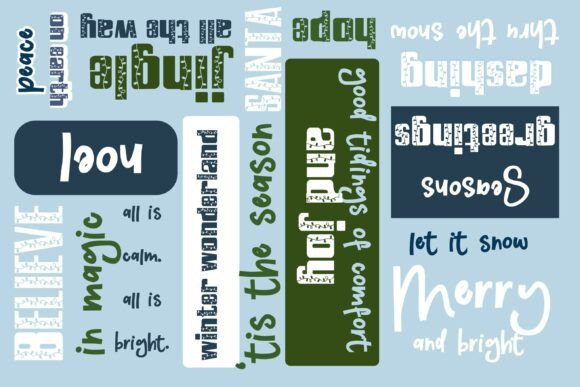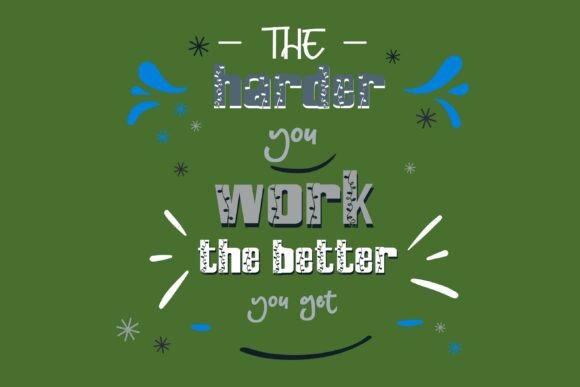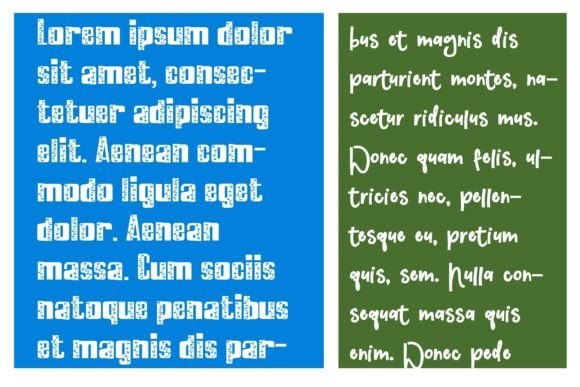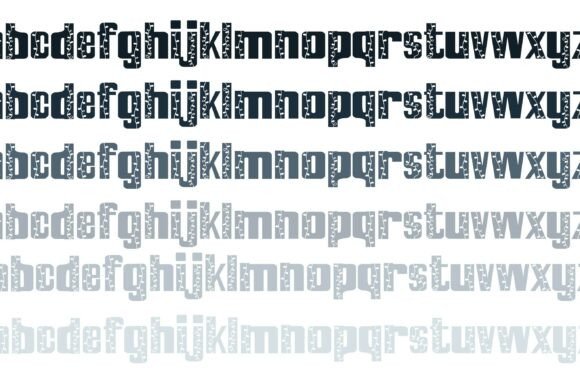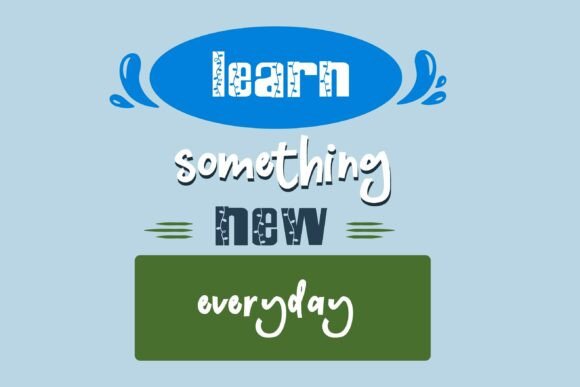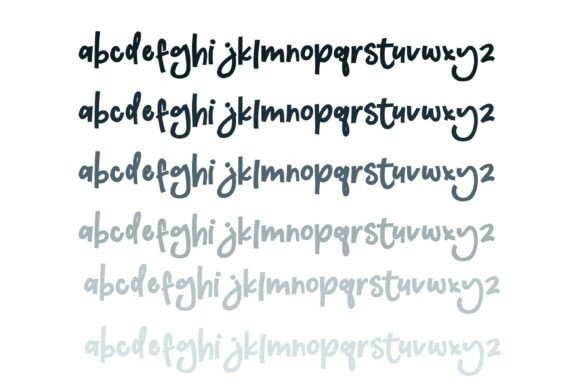
Illuminate Your Festive Designs with the City Lights Trio Font
The holiday season is upon us, and what better way to get into the spirit than with a font that’s as festive as it is functional? Look no further than the City Lights Trio Font, a captivating collection of decorative, bold, and script typefaces that are sure to add a touch of magic to your designs. This imaginative Christmas font trio is a fantastic asset for creating lively holiday party invitations, vibrant posters, bold seasonal branding, and engaging social media graphics.
The Primary City Lights Typeface: A Strong and Celebratory Display Font
The primary City Lights typeface is a strong, blocky display font that’s perfect for making a statement. Its cheerful light bulbs outlining or intertwined around its characters give your headlines an immediate, celebratory sparkle. Imagine using this font for a holiday party invitation or a festive poster – it’s sure to grab attention and put your audience in the holiday spirit. The bold and playful design of the City Lights typeface makes it perfect for headlines, titles, and short phrases.
Adding a Touch of Elegance with City Lights Script
The City Lights Script font provides a smooth, casual handwritten contrast to the bold primary typeface. This font is perfect for adding sentiments and signatures to your designs, giving them a personal and elegant touch. The script font is versatile and can be used for a variety of design applications, from holiday cards to social media graphics. Its smooth and flowing design makes it easy to read and adds a touch of sophistication to your designs.
The Versatility of the City Lights Typeface
One of the best things about the City Lights typeface is its versatility. The font allows for fun layering and color combinations, ensuring your designs always glow with holiday cheer and stand out like city lights! You can experiment with different colors, textures, and patterns to create unique and eye-catching designs. Whether you’re a designer or a crafter, the City Lights typeface is a fantastic tool to have in your toolkit.
Design Applications for the City Lights Trio Font
The City Lights Trio Font is perfect for a variety of design applications, including:
- Holiday party invitations and flyers
- Festive posters and banners
- Seasonal branding and packaging
- Holiday cards and gift tags
Tips and Tricks for Using the City Lights Trio Font
Here are a few tips and tricks for getting the most out of the City Lights Trio Font:
- Experiment with different color combinations to create unique and eye-catching designs
- Use the primary City Lights typeface for headlines and titles, and the City Lights Script font for sentiments and signatures
- Add textures and patterns to your designs to give them a more festive feel
- Use the City Lights typeface in combination with other fonts to create a unique and visually appealing design
The City Lights Trio Font is a fantastic asset for designers and crafters looking to add a touch of magic to their holiday designs. With its bold and playful primary typeface, smooth and elegant script font, and versatile design, this font trio is perfect for a variety of design applications. Whether you’re creating holiday party invitations, festive posters, or social media graphics, the City Lights Trio Font is sure to illuminate your designs and put your audience in the holiday spirit.